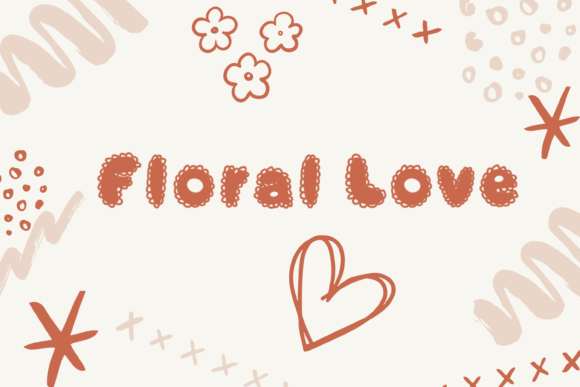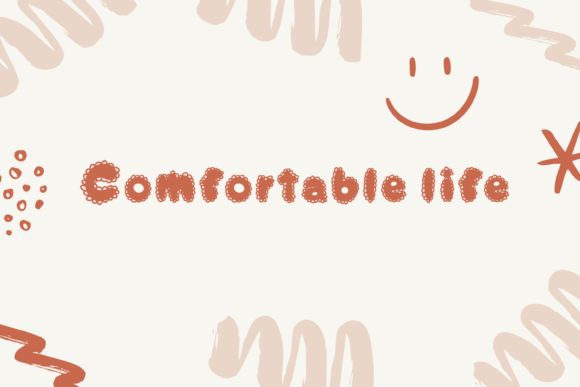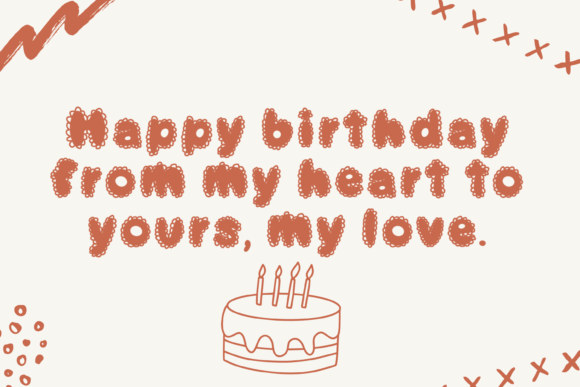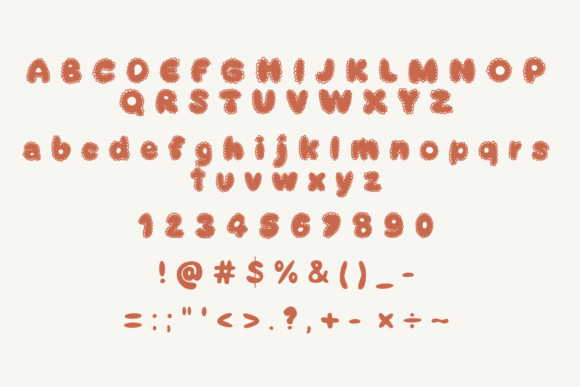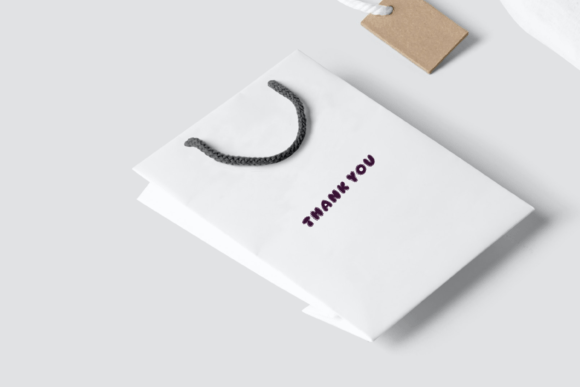
Have you ever been brainstorming a new project and suddenly, a spark of inspiration hits you? Maybe it’s a children’s book, a relaxing wellness campaign, or a sweet birthday card for a loved one. Whatever it is, you know you need a font that’s just as special as your idea. That’s where Fluffy Font comes in – a beautiful display font designed to bring your creative visions to life.
Fluffy Font is the perfect addition to any project that requires a touch of whimsy and charm. Its soft, rounded edges and playful feel make it a valuable asset for designers looking to add a personal touch to their work. Whether you’re designing a book title, social media graphics, or a flyer, Fluffy Font is sure to bring a smile to your audience’s face. With its versatility and unique character, Fluffy Font is an essential tool in every designer’s toolkit.
Key Features of Fluffy Font
- Unique Characteristics: Fluffy Font features a distinctive, hand-drawn style with soft, rounded edges and subtle texture, giving it a warm and inviting feel.
Designer Review: Fluffy Font
Overall, I was excited to dive into Fluffy Font and see what it had to offer. The first thing that caught my attention was the font’s playful, whimsical feel ✨. It’s perfect for projects that need a touch of fun and personality, like children’s books or websites for younger audiences.
- Soft and rounded shapes give the font a friendly feel
- Works well for headings and short blocks of text
- Easy to read even at smaller font sizes
However, there are some limitations to keep in mind ⚠️. The font can feel a bit too playful or childish for more serious projects, and it may not be the best choice for longer blocks of text or complex content.
- May not be suitable for formal or professional projects
- Not ideal for long paragraphs or dense text
Overall, I’d give Fluffy Font 3.5 out of 5 stars. It’s a great addition to any designer’s toolkit, but it’s not a one-size-fits-all solution. Use it when you need a fun, playful touch, and be sure to pair it with a clear, easy-to-read font for body text.
Tips for Getting the Most Out of Fluffy Font
For optimal results, use Fluffy Font in conjunction with other playful fonts to create a cohesive design. Experiment with different font sizes and styles to add visual interest to your design. Use Fluffy Font for headings and titles to draw attention and create a sense of hierarchy.
Fluffy Font is commonly used for:
- Children’s books and educational materials
- Playful websites and social media graphics